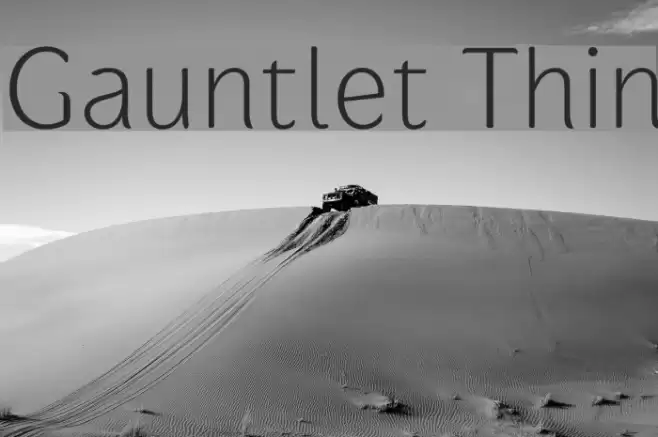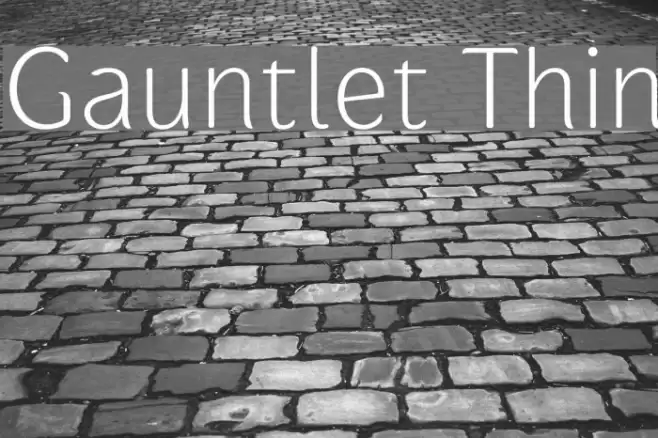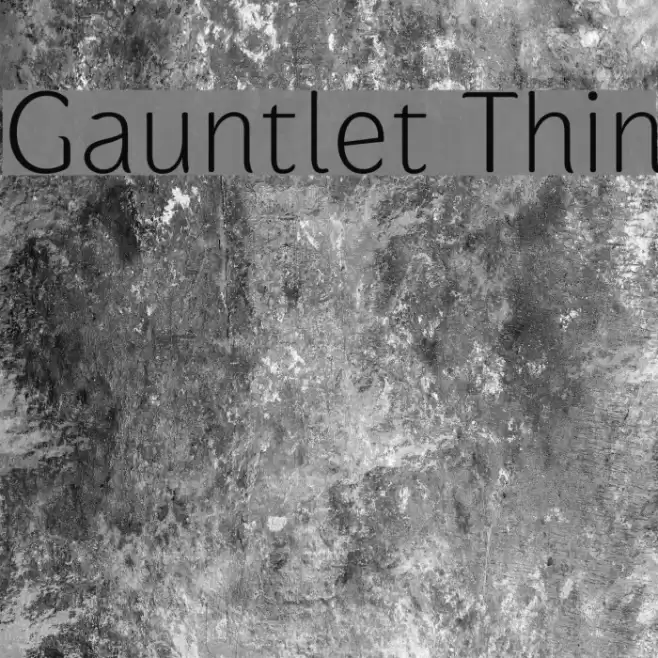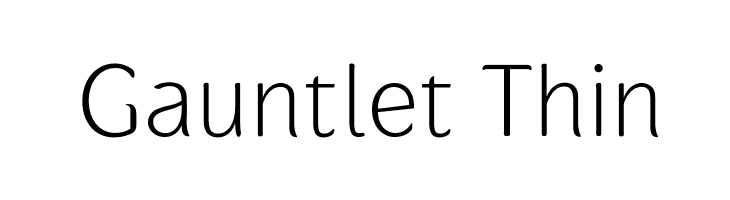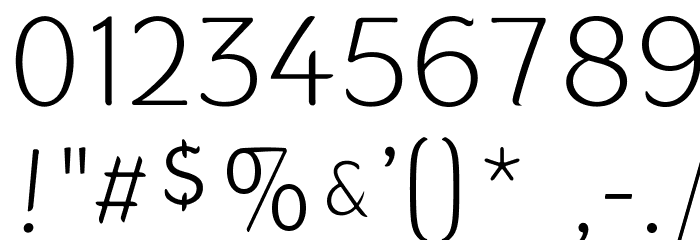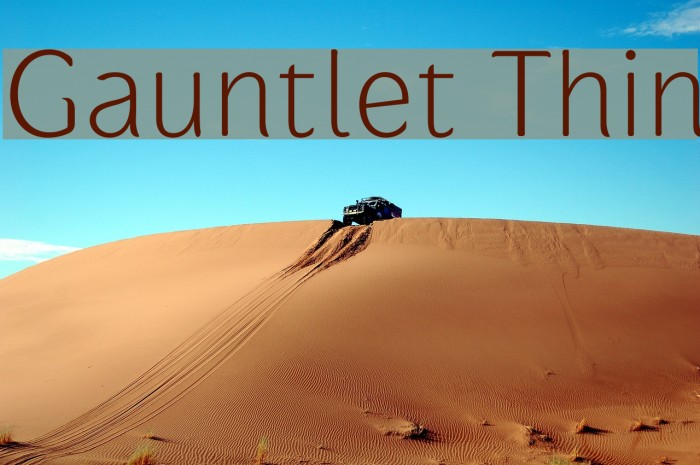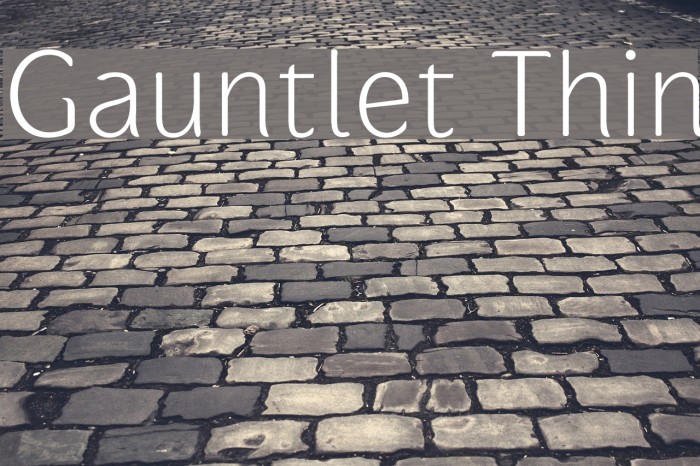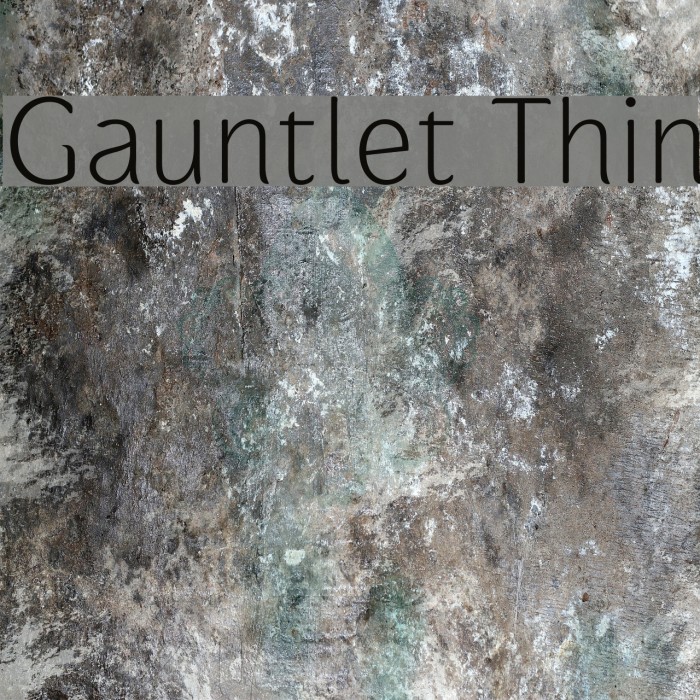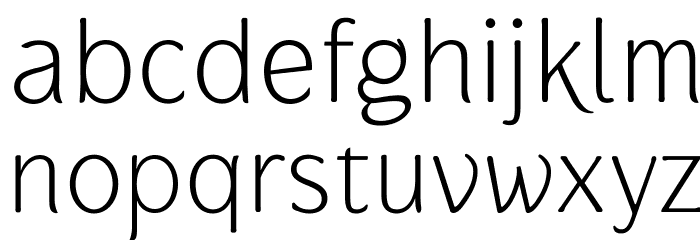
Gauntlet Thin
This font features a clean, modern sans-serif design with a thin weight, offering a sleek and minimalist appearance. The characters are well-proportioned with a consistent stroke width, providing a harmonious and balanced look. The uppercase and lowercase letters maintain a uniform style, enhancing readability and visual appeal. The numerals and special characters are designed to complement the alphabet, ensuring a cohesive overall aesthetic. This typeface is versatile, suitable for a variety of design applications where clarity and simplicity are desired.
A modern, thin sans-serif font with a clean and minimalist design.
- Proposed Projects: Ideal for branding, web design, editorial layouts, and minimalist graphic design projects.
- Weight: Light